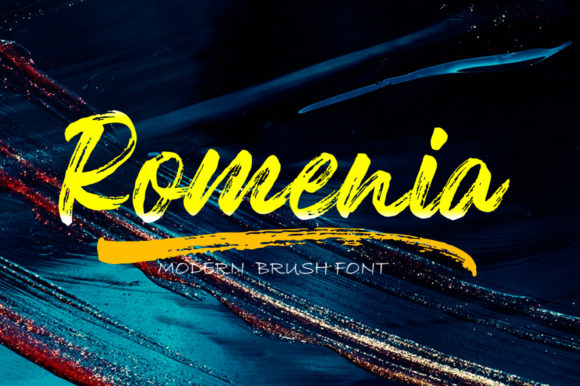
Behold Romenia, a captivating script font family that will leave you spellbound with its enchanting allure. This exquisite creation by gatype is a true masterpiece, meticulously designed to elevate your designs and leave a lasting impression on your audience.
With its graceful curves and elegant strokes, Romenia effortlessly embodies the essence of sophistication and charm. Its meticulously crafted characters dance across the page, evoking a sense of timeless beauty and effortless artistry. Whether you're crafting a poster, designing a logo, or creating social media graphics, Romenia promises to transform your words into works of art.
Step into a world of boundless creativity as you explore the endless possibilities that Romenia offers. Its versatile nature makes it the perfect choice for a wide range of design projects, from whimsical invitations to stunning branding materials. Unleash your imagination and let Romenia guide you towards design excellence.
Indulge in the beauty of Romenia's carefully crafted details. Each letterform is a testament to the font's exceptional quality, showcasing a harmonious blend of classic elegance and modern flair. Experience the joy of seamless readability as your designs come to life with Romenia's effortless flow and impeccable legibility.
As you delve deeper into Romenia's allure, you'll discover a font that possesses a captivating personality. Its playful nature adds a touch of whimsy to your designs, while its inherent versatility ensures it never fails to capture the attention of your audience.
Embrace the power of Romenia and unlock the gateway to design greatness. Let your creativity soar as you witness your visions transformed into captivating realities. With Romenia by your side, you'll embark on a journey of endless possibilities, leaving a trail of beauty and inspiration in your wake.